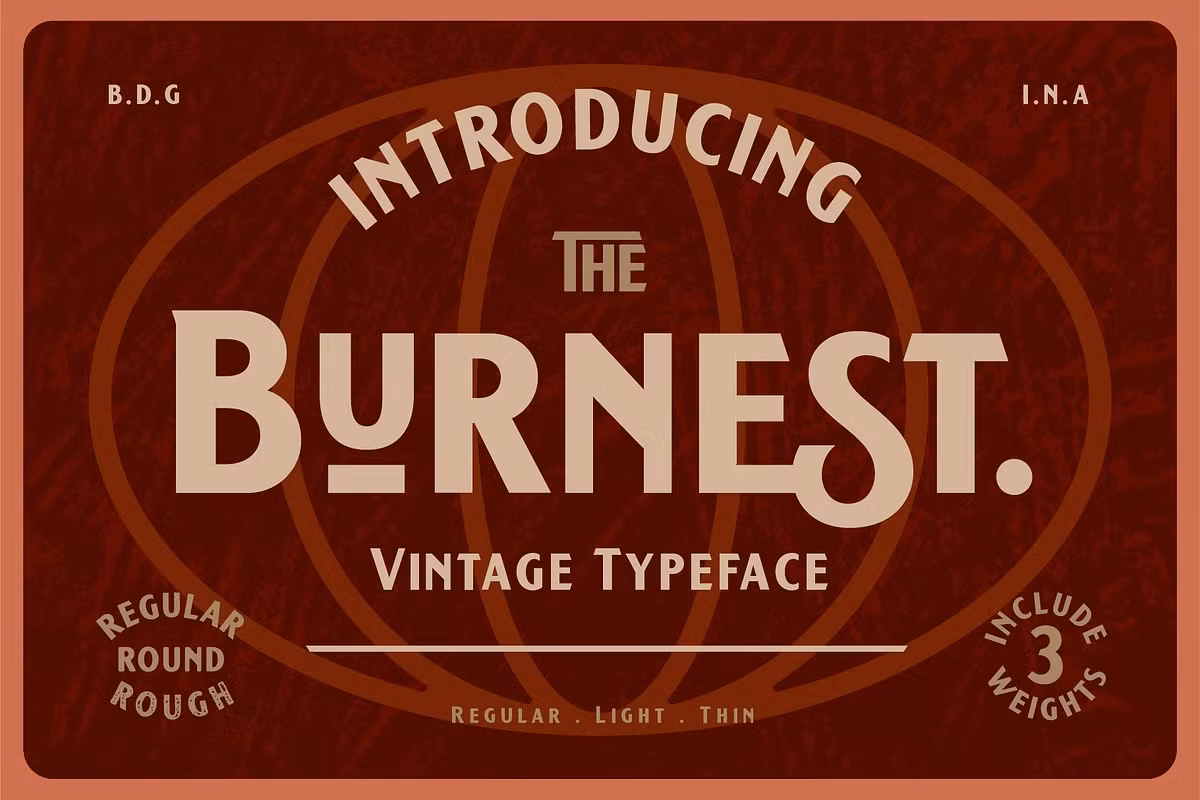
The Burnest Font Free Download is a bold, expressive typeface with a unique character that combines rugged, hand-drawn elements with a modern flair. Perfect for logos, branding, posters, social media graphics, and creative projects, this font adds a strong and dynamic presence to your designs.
With its irregular, textured strokes and striking appearance, Burnest works well for high-impact designs that need to stand out. It includes uppercase and lowercase letters, numbers, punctuation, and multilingual support, making it versatile for a variety of applications.